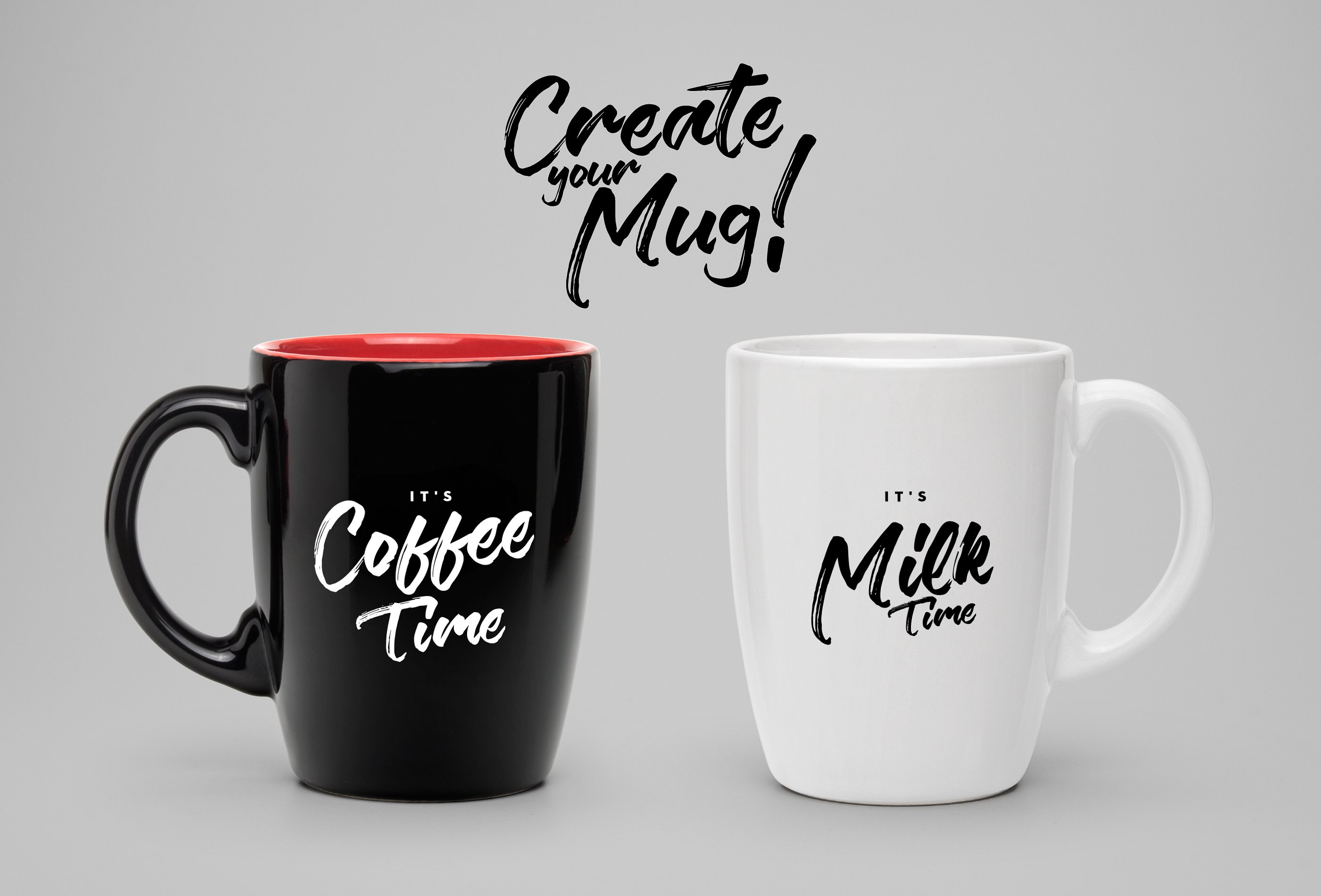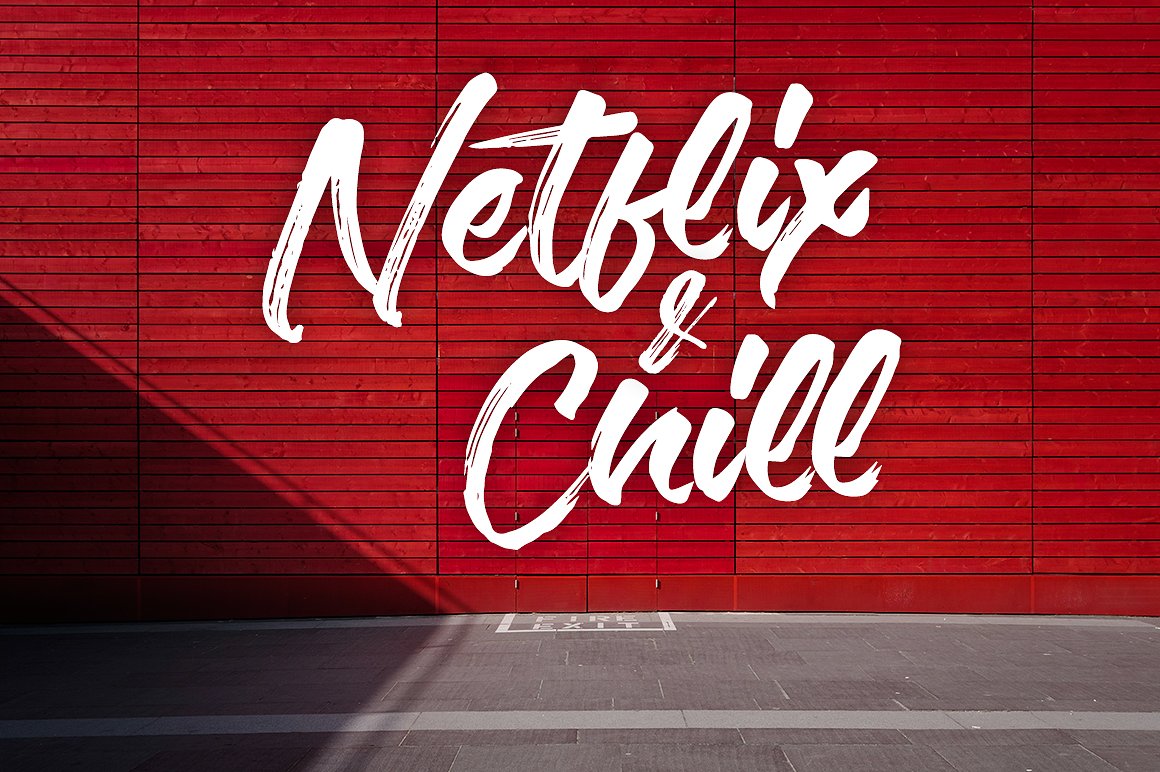
Verbena Handstylish Font
Introducing the new script font. Verbena Handstylish Font designed by Alif Devan R. Say hello for Verbena Handstylish Font! Best match for logos, header, titles, prints & other creative process possibilities. Create a extraordinary handstylish results by using Verbena Handstylish Font!